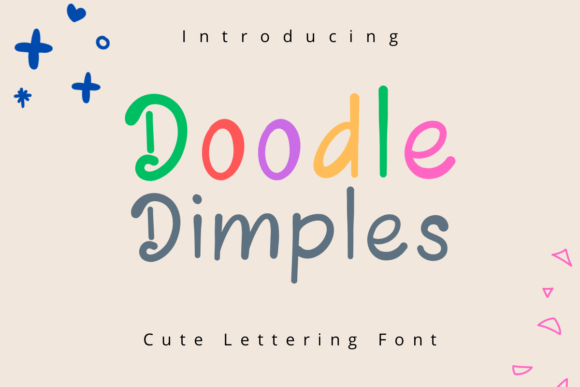
The Perfect Font for Adding a Touch of Whimsy to Your Designs
Have you ever stared at a blank page, trying to come up with the perfect font to match your creative vision? It’s a moment we’ve all been in – the blank slate, the endless options, and the pressure to get it just right. But what if I told you there’s a font that can make that process a whole lot easier? Enter the Doodle Dimples Font, a charming and creative typeface that’s sure to capture attention and add a playful touch to your projects.
With its unique design and endearing character types, the Doodle Dimples Font is a valuable addition to any designer’s toolkit. Suitable for graphic design, branding, social media, and more, this font is perfect for those looking to add a distinct personality to their work. Whether you’re a seasoned pro or just starting out, the Doodle Dimples Font is sure to bring a smile to your face and a touch of whimsy to your designs.
Doodle Dimples Font Key Features
- Unique Characteristics: Playful, whimsical design with rounded edges and irregular shapes, adding a touch of personality to text.
- Font Style: Casual, cursive font with a relaxed, handwritten feel, perfect for creative projects and informal communication.
Doodle Dimples Font Review
I’ve had the chance to play around with the Doodle Dimples font, and here are my honest thoughts.
- The whimsical, playful feel of the font is perfect for designs that need a bit of personality.
- The font is highly customizable, with various font sizes and colors to choose from.
- The Doodle Dimples font is also very versatile, suitable for both digital and print designs.
- The font may not be ideal for professional or formal designs, as it can come across as too casual.
- The Doodle Dimples font is a bit more difficult to read at smaller font sizes, which can be a limitation in certain designs.
Overall, I think the Doodle Dimples font is a great choice for designs that need a bit of flair. While it may not be suitable for every project, it’s a versatile and customizable option that can add a lot of personality to your designs. With a bit of caution when using it in smaller font sizes or formal designs, I think this font has a lot of potential.
Tips for Getting the Most Out of Doodle Dimples Font
Use Doodle Dimples Font to create playful, whimsical designs that add a touch of personality to your projects.
Experiment with different font sizes, colors, and styles to achieve a unique look.
Combine Doodle Dimples Font with other creative elements, such as illustrations or graphics, to create visually appealing designs.
Doodle Dimples Font is perfect for:
Children’s book illustrations
Party invitations and decorations
Personalized greeting